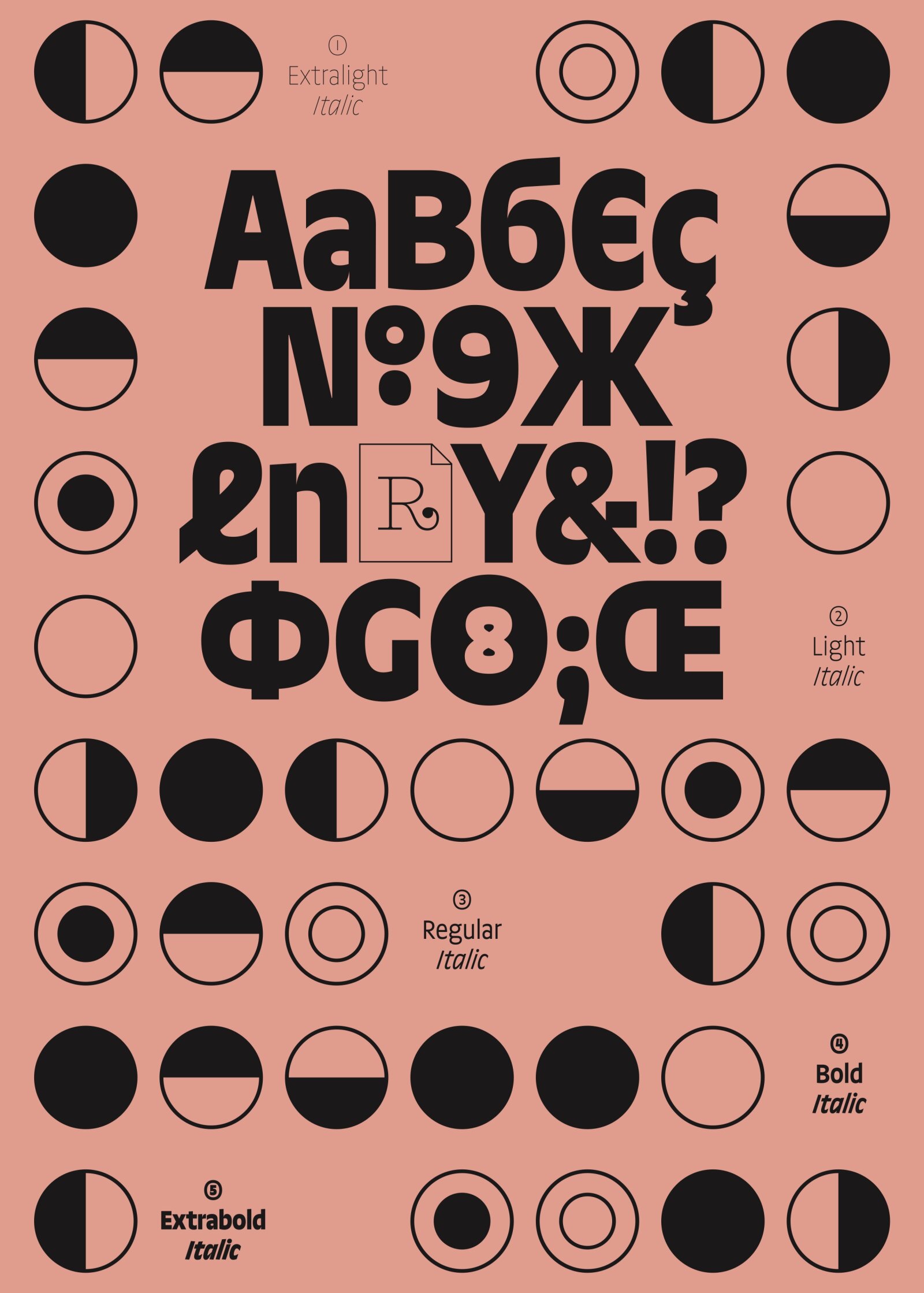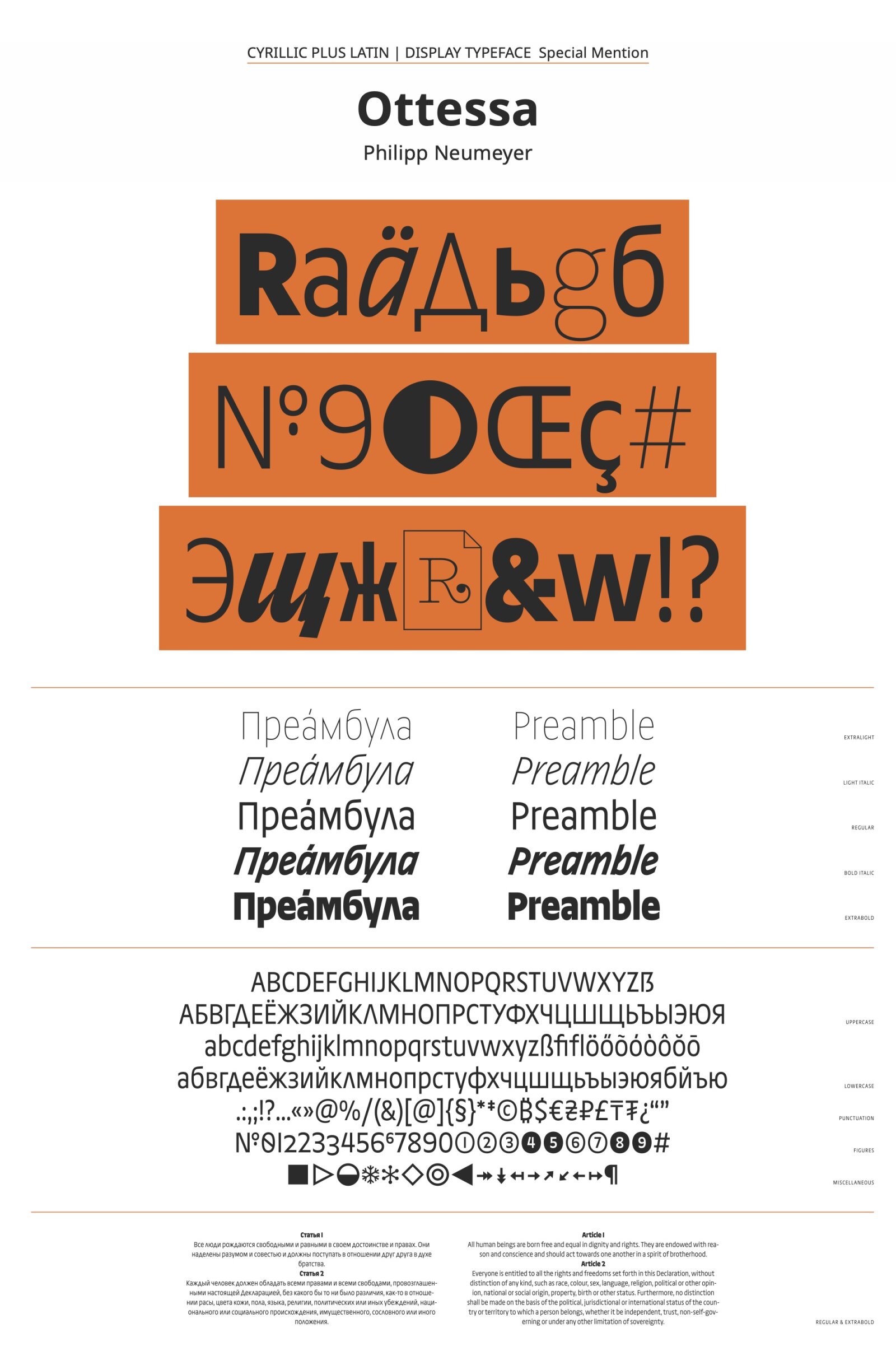
Ottessa
by Philipp Neumeyer
Cyrillic
Distinctive character with strong italic that successfully carries over to Cyrillic whose stylistic choice is rather uncommon but confidently handled.
The typeface is a hybrid of euphoria and misinterpretation, it is a melting pot combining all the sweets with a dash of savouriness for substance. A large x- height and compact proportions make this friendly chimaera an accomplice in changing up the typography landscape from cold purebreds into colourful crossbreeds. While the low-contrast weights from Extralight to Bold maintain the same transition from straight stem to curve, the vicious Extrabold takes a high- contrast approach. Extralight’s spiky triangular forms transform into stilted flats and vertical strokes take on the same thickness as the horizontals. Steeply angled polysemic Italics take on a dynamic, humanistic approach with fast upstrokes and seemingly rotated rounds. With native-approved Cyrillic, and a broad Latin character set, the font speaks more than 270 languages. A plethora of OpenType features like case-sensitive punctuation, figure sets, alternates, arrows and symbols enrich its toolbox.